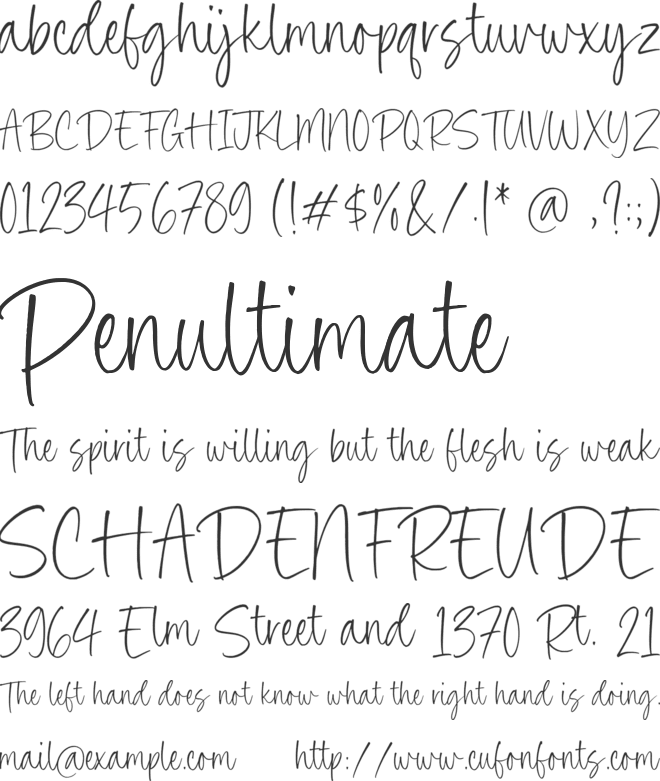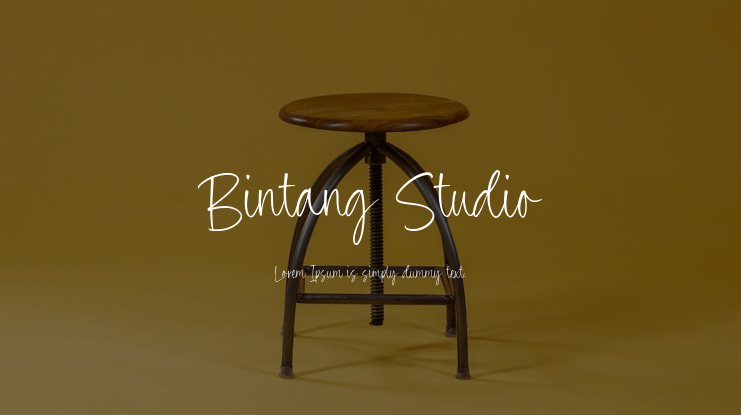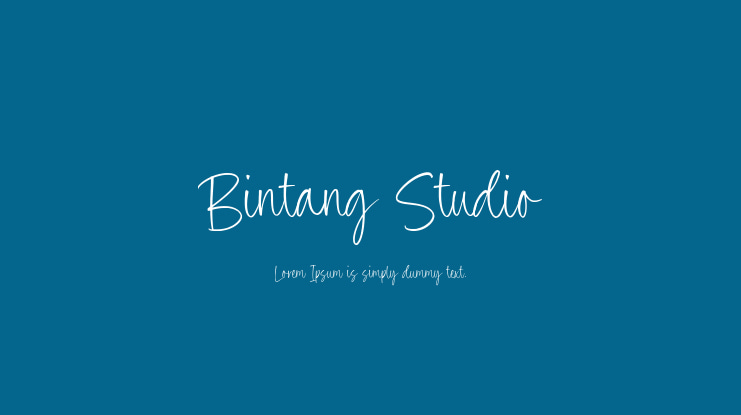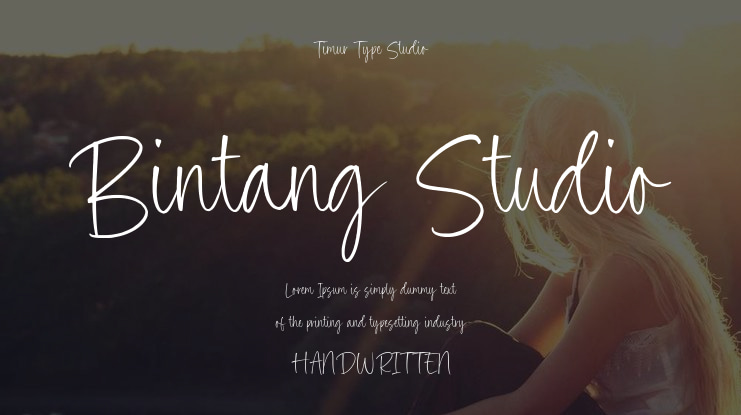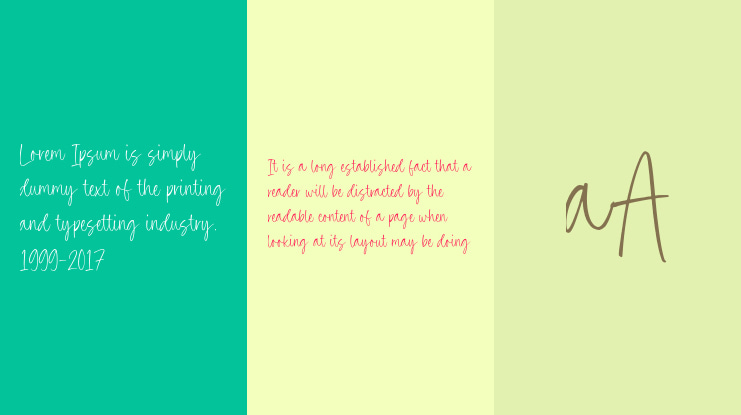
Presented by Timurtype Studio, the Bintang Studio is a charming Handwritten Script Font that exudes style and elegance, making it a perfect choice for various design projects. Its graceful and flowing letterforms bring a touch of charm, while the smooth and fluid strokes give it a refined and effortless aesthetic. This font is ideal for enhancing the sophistication and luxury of invitations, branding materials, and wedding designs. Whether you are going for a romantic and dreamy feel or a classy and timeless look, the versatility and beauty of the Bintang Studio font will elevate your designs with refined elegance and artistic flair.